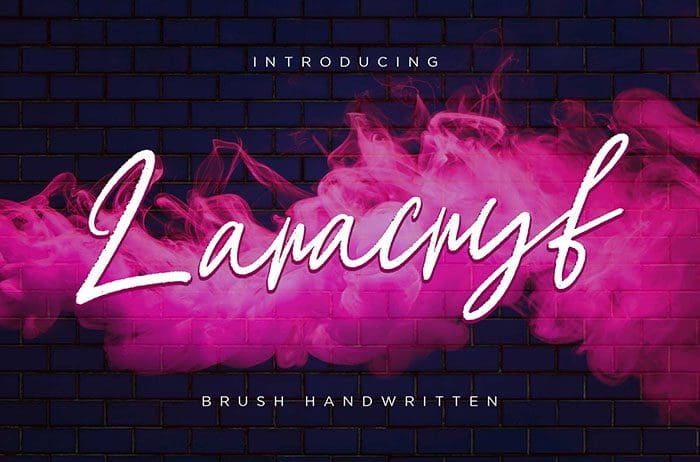
Laracryf Script Font
Laracryf is a script font with an elegant and natural movement style. Laracryf is perfect for branding projects, logo, wedding designs, invitation, and more. Thanks to Creatype Studio for sharing this font! Take a look at this portfolio for more of his stunning fonts.